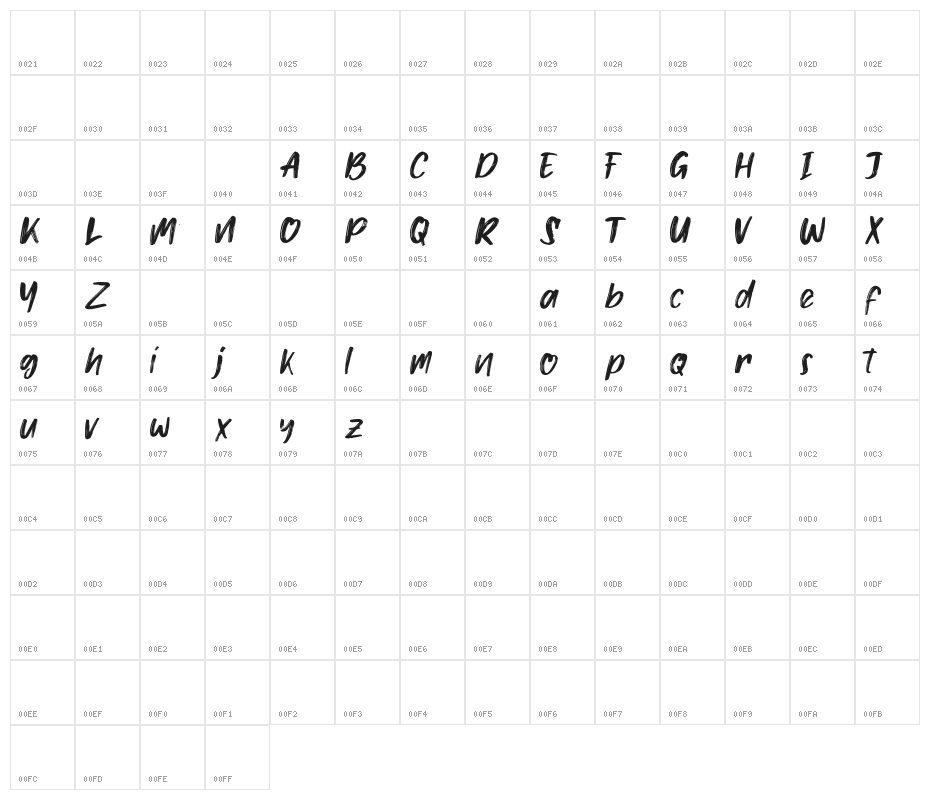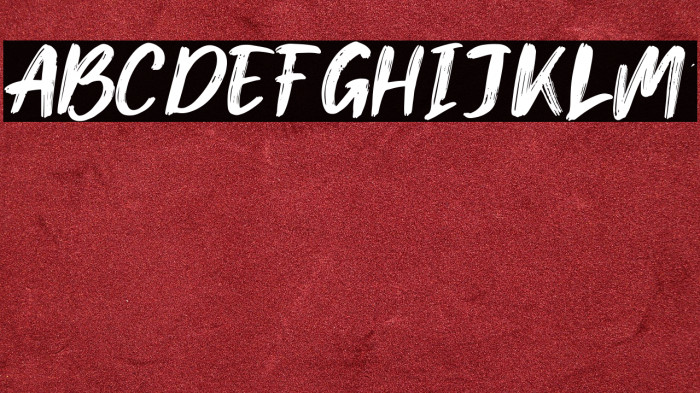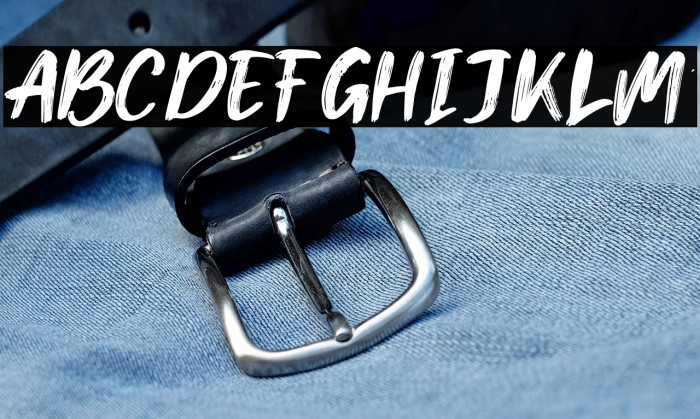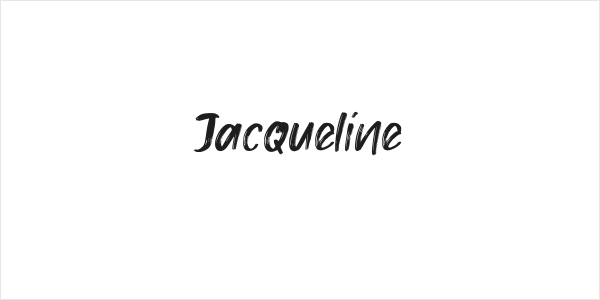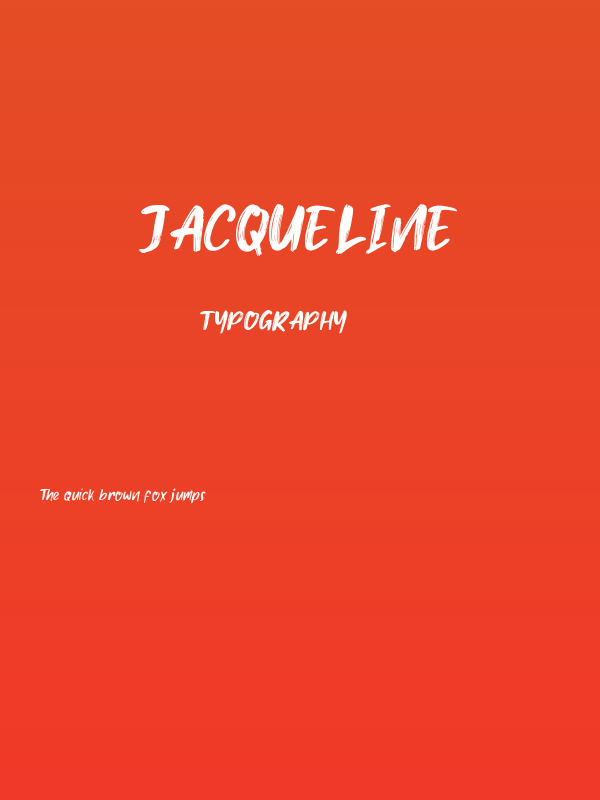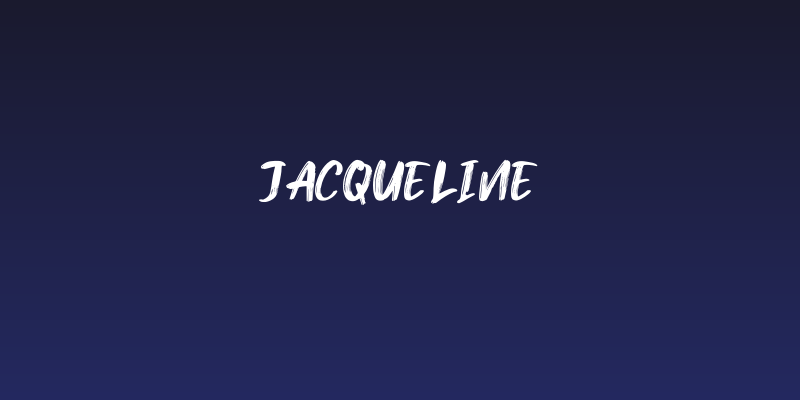
Jacqueline Font
Jacqueline Description
This font features a bold and expressive brush script style, characterized by its dynamic and energetic strokes. The letters have a hand-painted appearance, with varying thicknesses that add a sense of movement and spontaneity. The uppercase and lowercase letters are well-balanced, maintaining a consistent flow throughout. The font's rough edges and irregularities give it a natural and authentic feel, making it ideal for projects that require a personal touch. Its artistic flair is suitable for creative designs, adding a unique and eye-catching element to any text.
Proposed ProjectsIdeal for branding, packaging, posters, and social media graphics that require a creative and artistic touch.